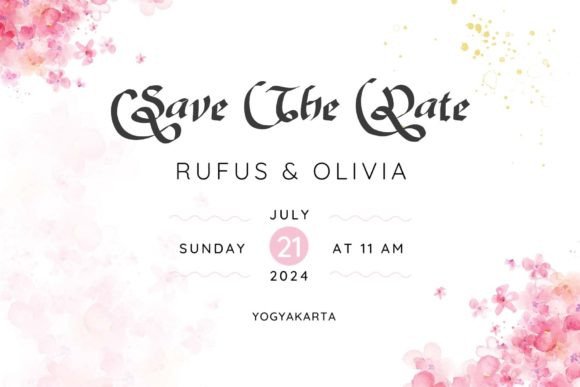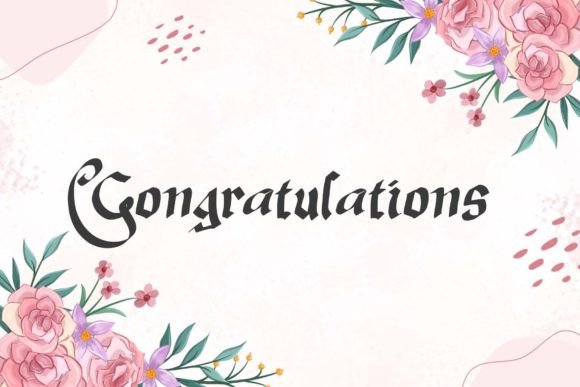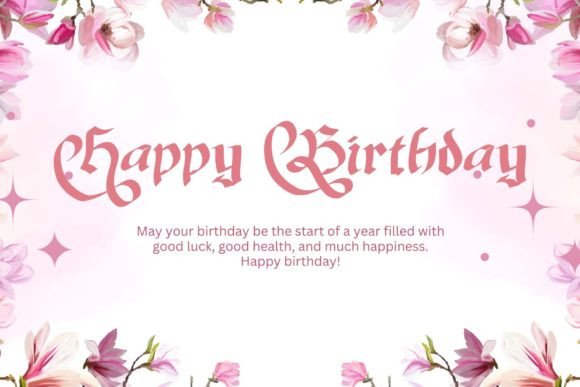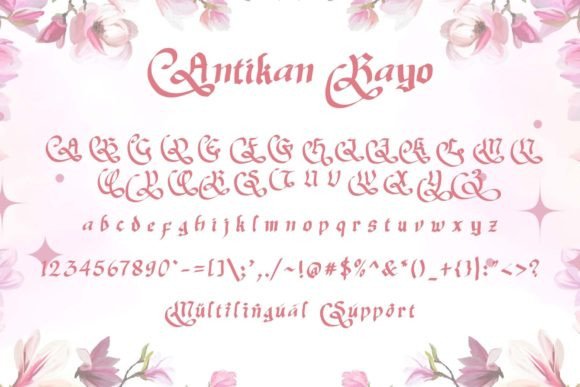
The Magic of Antikan Rayo Font: A Designer’s Delight
I’ll never forget the time I was working on a Christmas-themed project, and I just couldn’t find the perfect font to capture the essence of the season. My client wanted something elegant, yet bold, and I was on a mission to deliver. That’s when I stumbled upon the Antikan Rayo font, and it instantly became my go-to choice. In this article, I’ll share my experience with this beautiful blackletter font, its features, and how to make the most of it in your designs.
An Honest Review of Antikan Rayo Font
What I Love About Antikan Rayo Font
- ✨ Stunning blackletter design that’s perfect for creating eye-catching titles and headings
- ✅ Multilingual support to cater to diverse audiences
- ✅ Comprehensive character set including uppercase, lowercase, numerals, punctuation, and more
- ✨ Versatile and adaptable for various design projects, from Christmas and winter themes to weddings, engagements, and valentines
While Antikan Rayo Font is an excellent choice, there are a few things to keep in mind:
- ⚠️ Glyphs and special characters might require a bit more exploration to get familiar with
- 🤔 OpenType features might not work seamlessly across all design platforms or software
The Backstory of Antikan Rayo Font
Antikan Rayo Font was designed with the intention of creating a unique and versatile blackletter font that could cater to various design needs. Inspired by traditional blackletter calligraphy, the font’s creator aimed to craft a modern, elegant, and highly legible design.
Q: What type of projects is Antikan Rayo Font best suited for?
A: Antikan Rayo Font is perfect for Christmas, winter, weddings, engagements, valentines, invitations, photography, birthdays, and other creative projects that require a touch of elegance and sophistication.
Q: Does Antikan Rayo Font support multilingual characters?
A: Yes, Antikan Rayo Font comes with multilingual support, making it an excellent choice for designers working with diverse audiences.